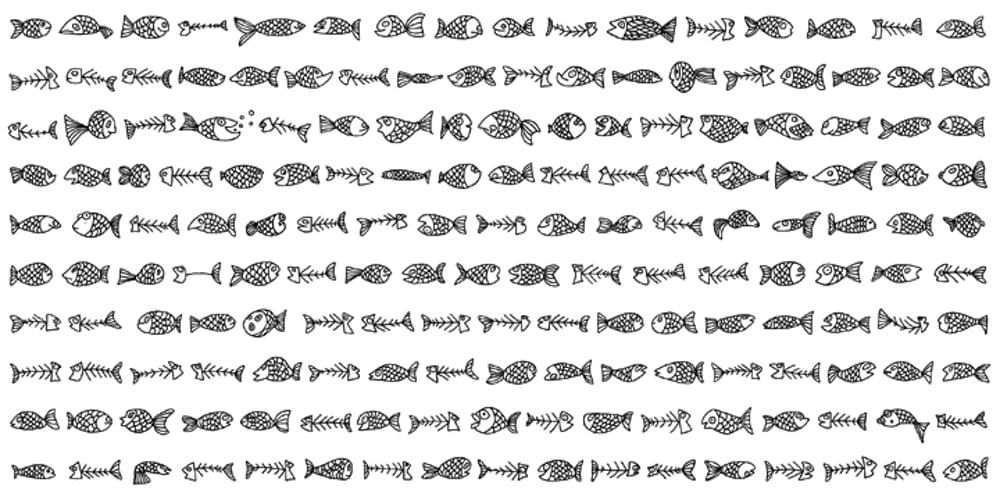
LiebeFish Font Family was designed by Ulrike Rausch and published by LiebeFonts. LiebeFish contains 1 styles and family package options. LiebeFish is a collection of 172 individually hand-drawn fish. Each has its very own personality; some are happy, some are sad. Some like company, some are bored, most are cute and a few are weird. If you look closely, some fish will surely look like people you know. LiebeFish probably is the most comprehensive collection of hand-drawn fish ever. They look great on almost any greeting card, birthday card or invitation. LiebeFish also serve as a perfect companion to any informal graphic design that needs a personal, handmade touch. If you like this font, have a look at our other cute fonts such as LiebeTweet and LiebeRobots.